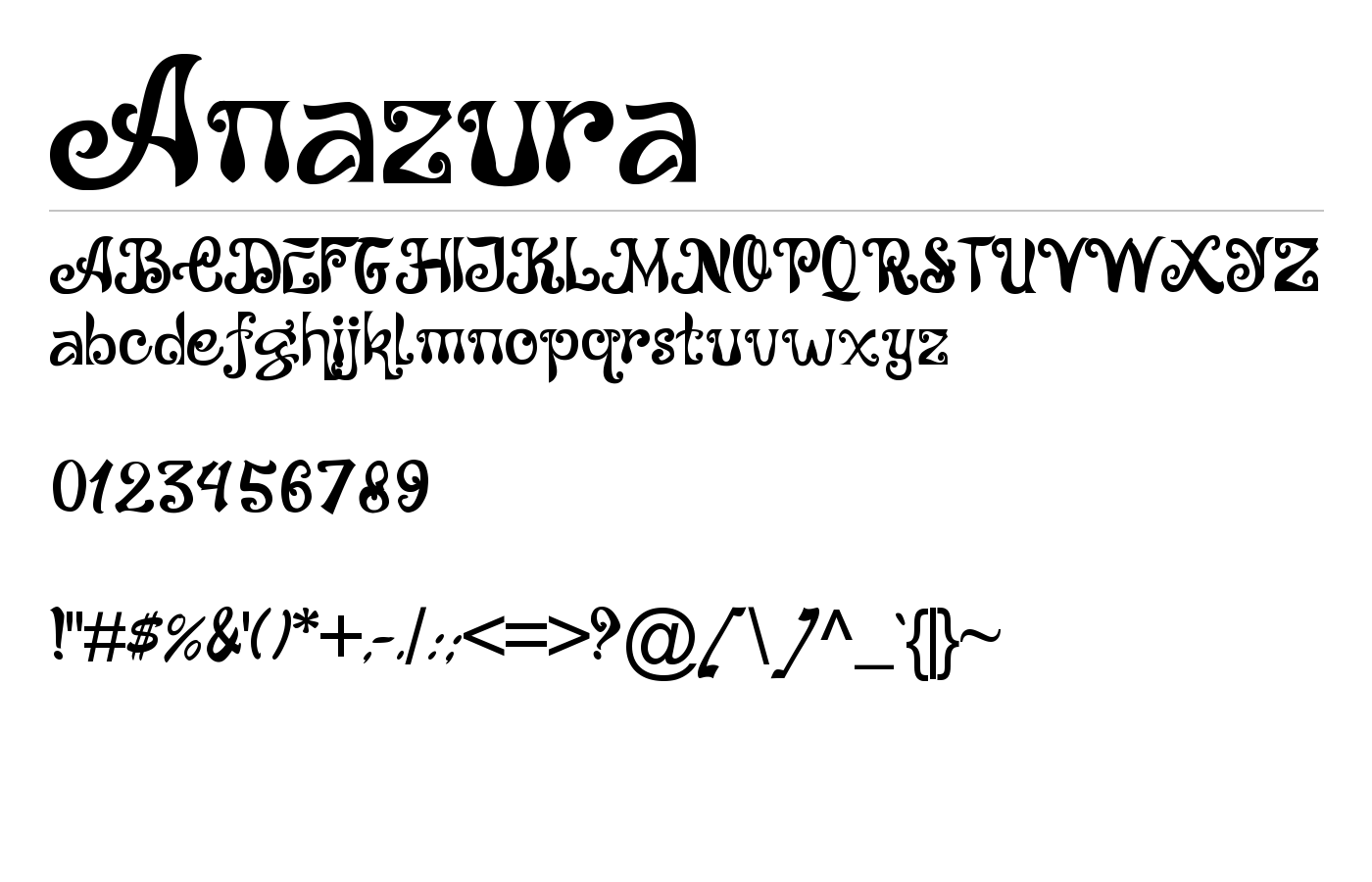
Anazura is a decorative serif font with playful, swirly embellishments and moderate contrast between thick and thin strokes, giving it a whimsical, vintage feel. Its unique letterforms, with curly terminals and distinctive shapes, make it ideal for creative branding, logos, and display use where a fun, eye-catching style is desired. This font works best in headlines or packaging that aim to evoke charm and a quirky, artistic personality.
Anazura Font
About Anazura Font